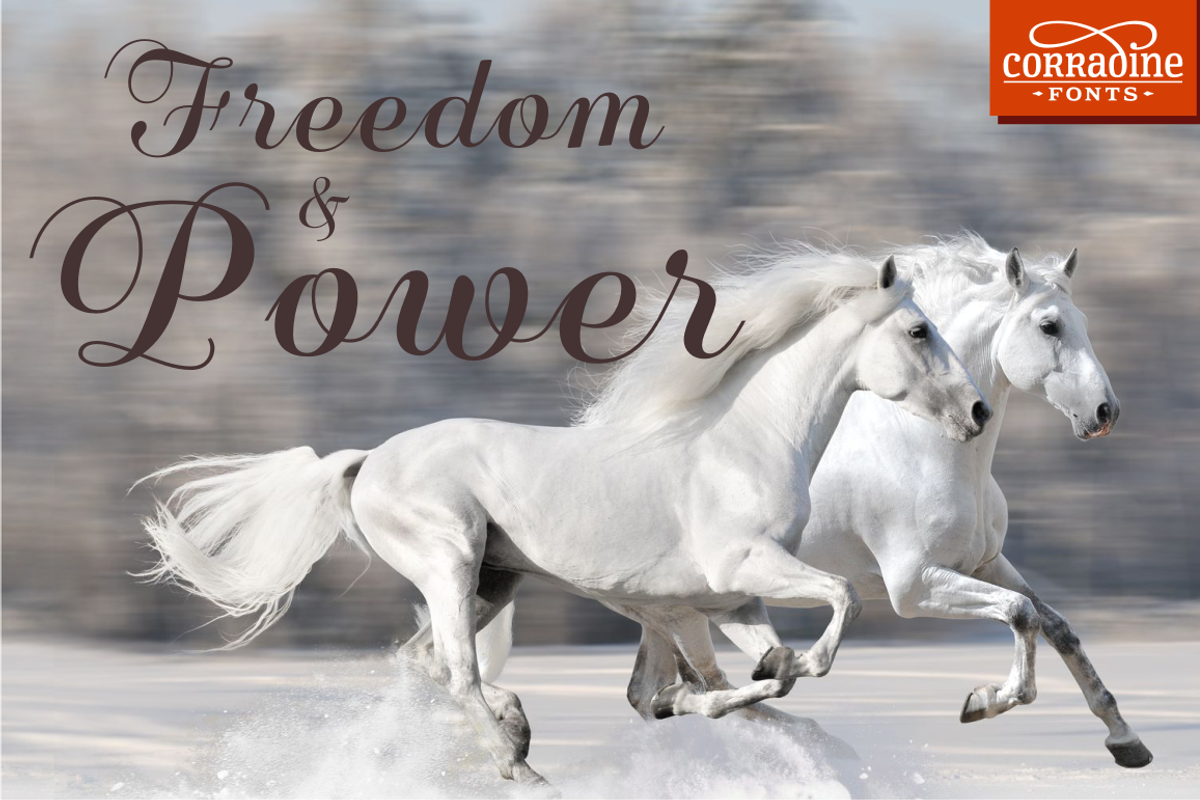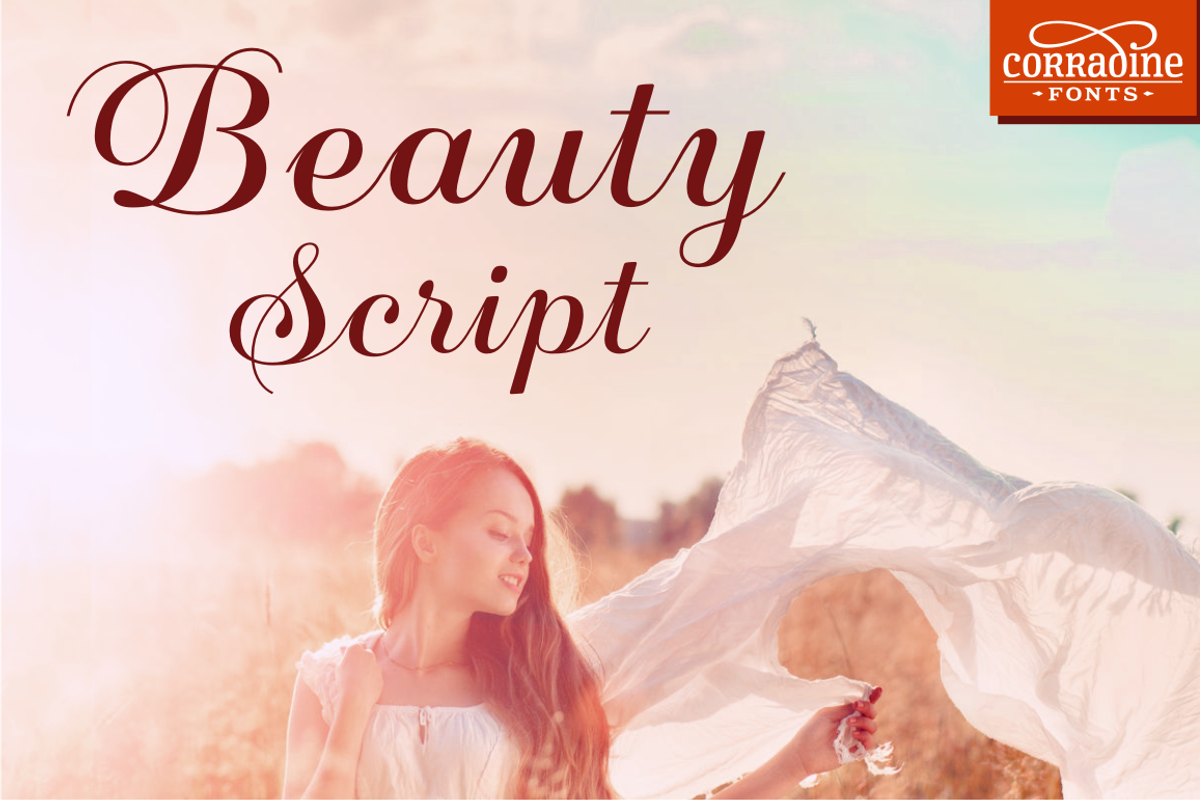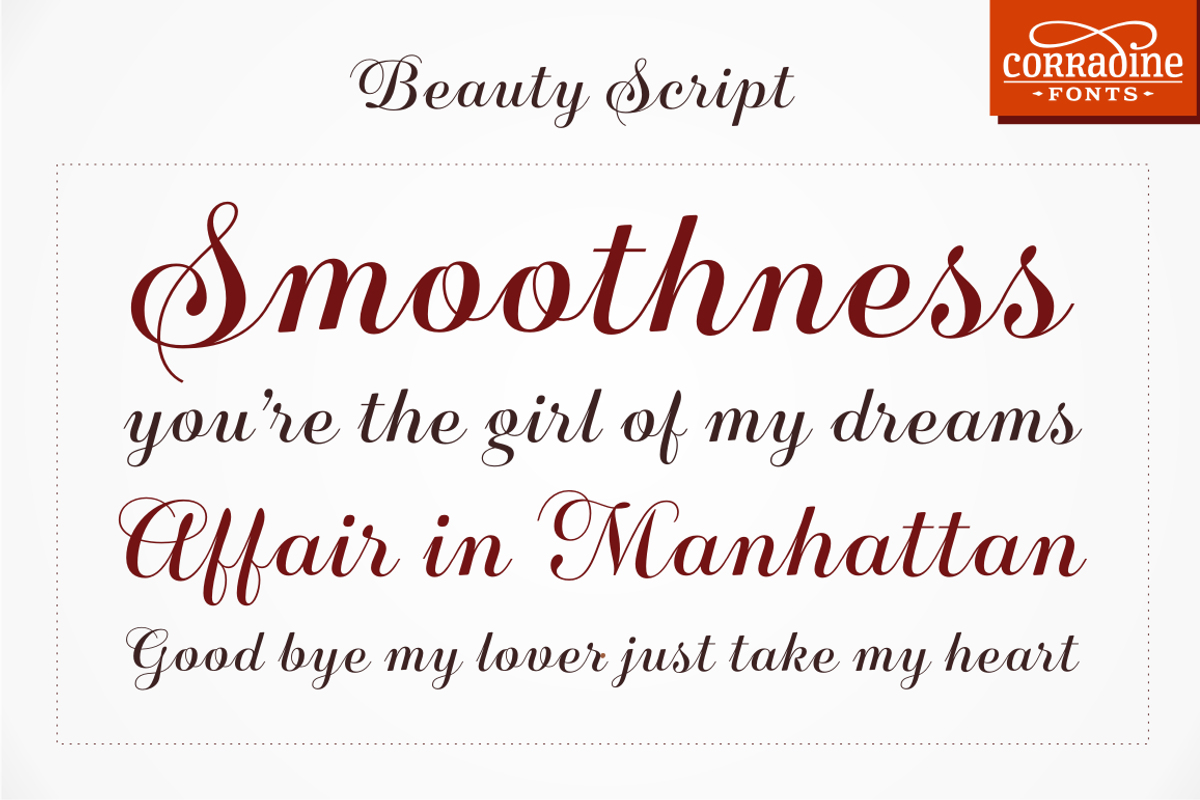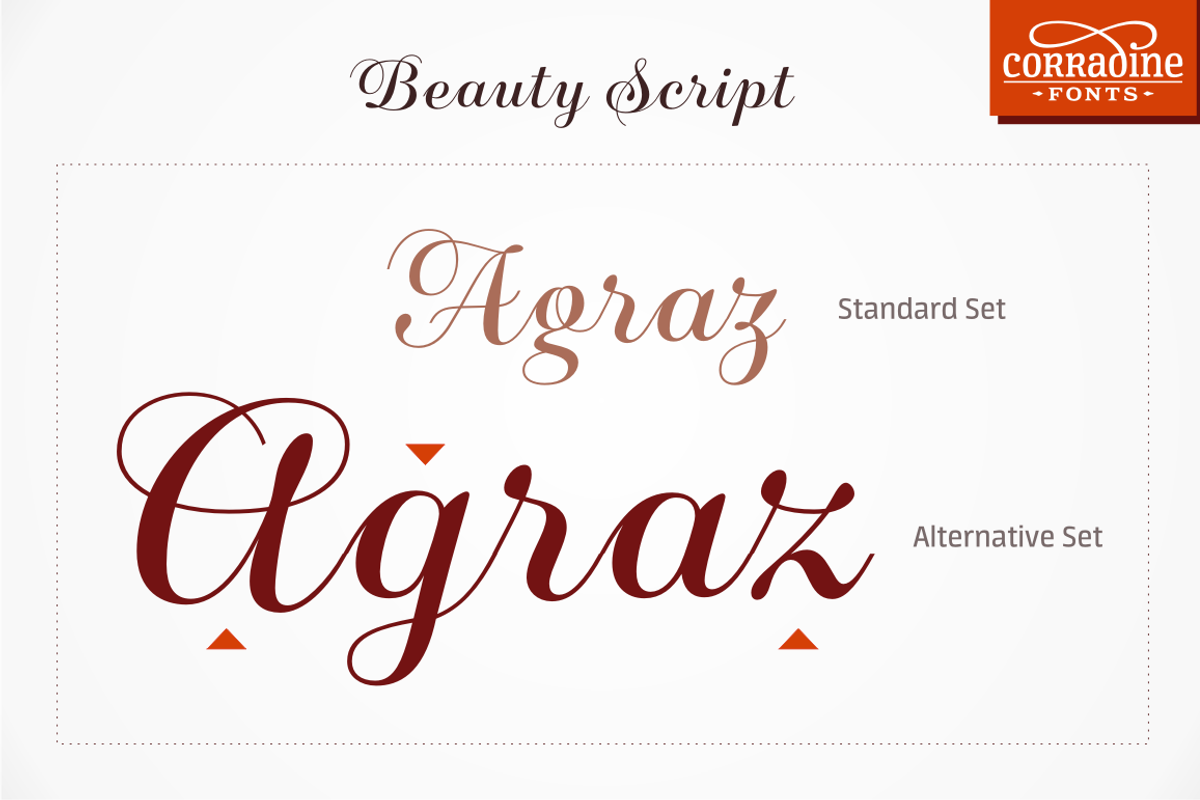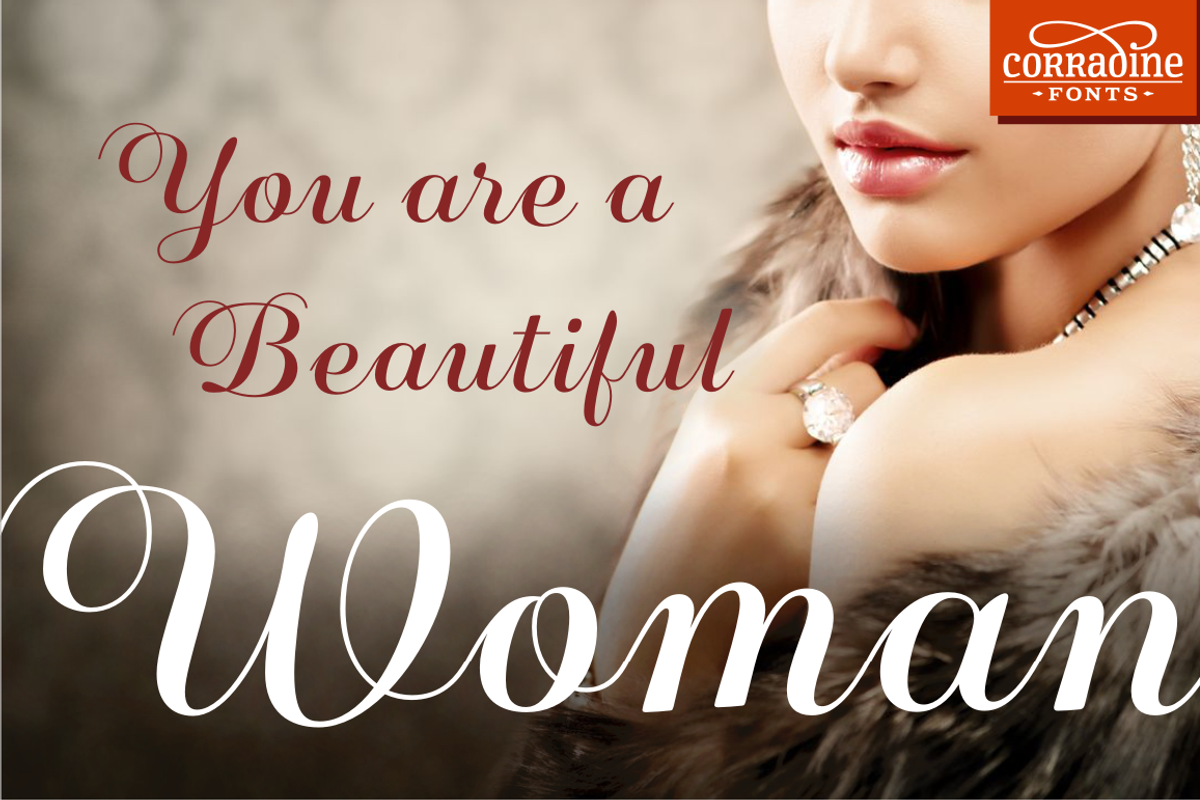
Beauty Script
Beauty Script by Corradine Fonts is a font selected for branding, posters, packaging, typography.
Beauty Script by Corradine Fonts fits naturally into Branding, posters, packaging, typography.